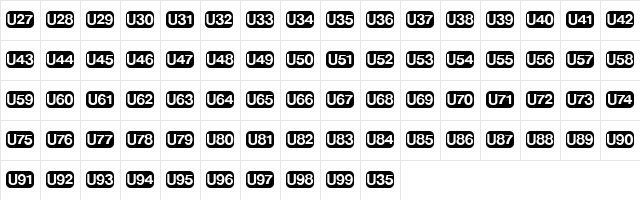
DeutscheBahnAG Regular
Design Context for DeutscheBahnAG Typeface
DeutscheBahnAG is a composed and adaptable typeface that performs quietly and consistently across a wide range of design contexts.